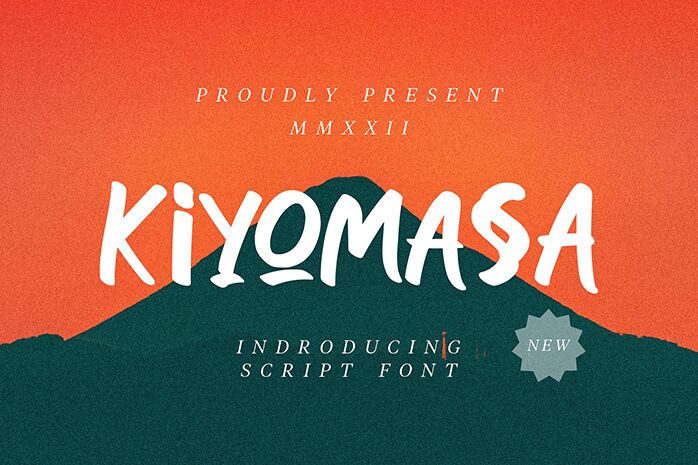
Kiyomasa, a creation of Typegoals Labs, embodies the spontaneous energy and personal touch of marker-style script fonts. Its fluid yet distinct strokes suggest a blend of casual artistry and deliberate design, making it a standout choice for projects that require a balance of approachability and flair. The font's aesthetic appeal lies in its apparent imperfections; each letter boasts variable line weights and an organic flow that simulates the marks of a traditional marker on paper.
This versatility allows Kiyomasa to adapt effortlessly to various creative undertakings-be it branding, graphic quotes, or dynamic digital content. Its style exudes an informal charm while maintaining legibility, ensuring its suitability for both digital screens and print media. Whether you aim to inject personality into your project or craft relatable messages with visual warmth, Kiyomasa offers an authentic typographic solution that resonates with diverse audiences.